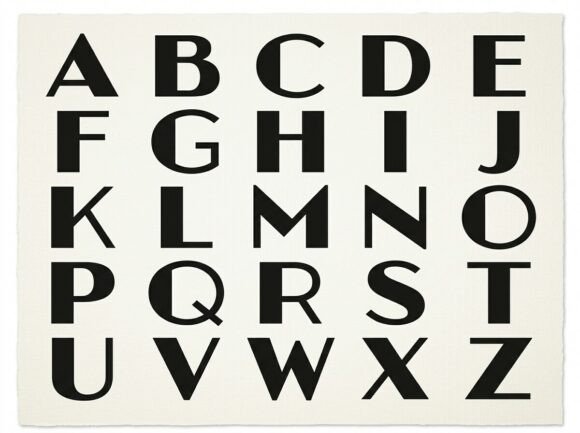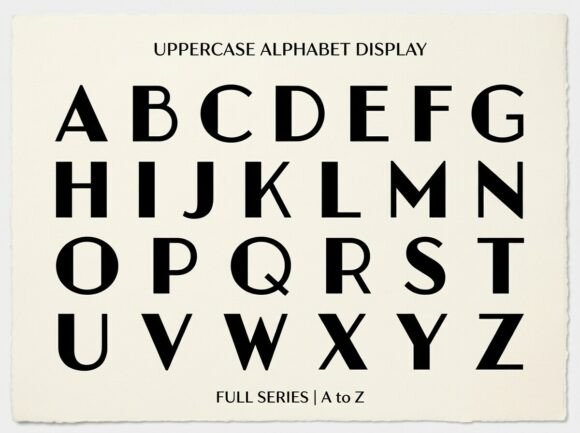
The Akira Font: A Stunning Decorative Display Font to Elevate Your Designs
Have you ever been working on a project, pouring your heart and soul into it, only to get stuck on one thing: finding the perfect font? I recall a particularly frustrating experience when a client asked for a bold, eye-catching headline font that would make their brand stand out. After scouring the internet for hours, I stumbled upon the Akira Font, and it was love at first sight! 💡
This decorative display font is designed to be the center of attention, and with its unique artistic elements and strong visual personality, it’s perfect for creators who want to break away from the ordinary. In this article, we’ll dive into the world of Akira Font, exploring its features, how to use it, and some similar fonts you might love.
An Honest Review of Akira Font
- ✅ Unique and artistic elements that make it perfect for bold headlines and decorative initials
- ✅ Professional and polished finish, making it suitable for high-end designs
- ✅ Versatile enough for various design applications, including logos, packaging, and more
One thing to note is that Akira Font is an ALL-CAPS (Uppercase Only) display typeface, which means it doesn’t include lowercase letters. This might be a limitation for some designers, but it’s actually a deliberate design choice to focus on creating stunning, high-impact headlines and decorative initials.
The Designer Inspiration Behind Akira Font
The story behind Akira Font is one of creative passion and experimentation. The designer, inspired by Japanese art and culture, aimed to create a font that would reflect the beauty and elegance of the Akira universe. With its unique blend of artistic elements and strong visual personality, Akira Font is a testament to the power of design to evoke emotions and spark imagination.
| Font Name | Akira Font |
| Author | Angel_Srapix |
Q: Is Akira Font suitable for body text?
A: While Akira Font is primarily designed for headlines and decorative initials, it’s not ideal for body text due to its bold and artistic nature.